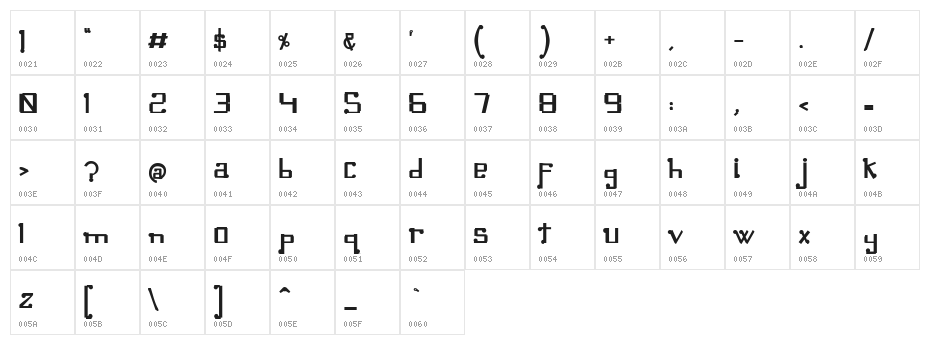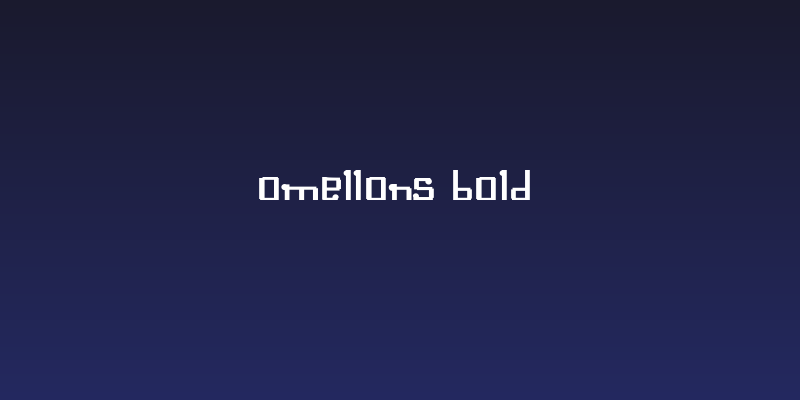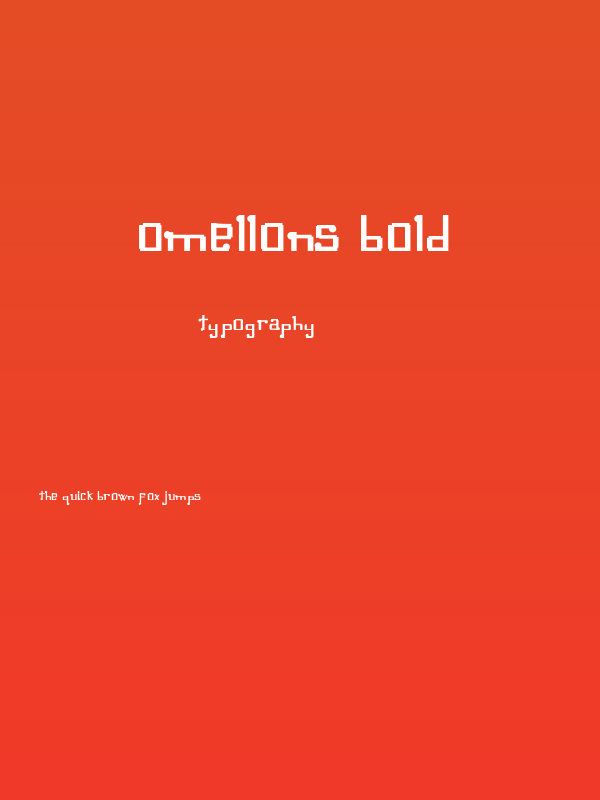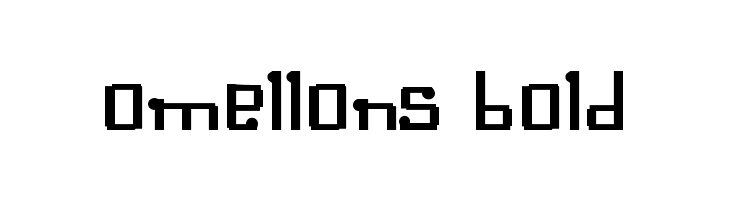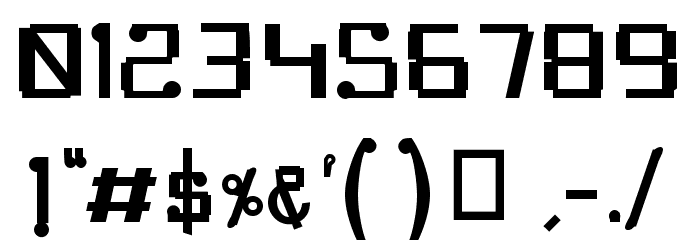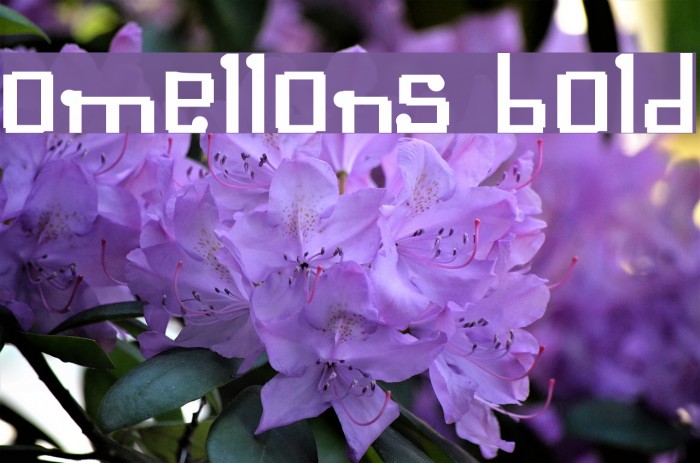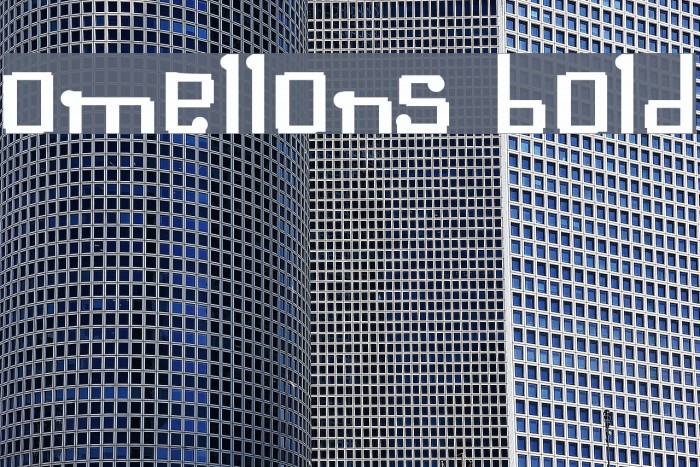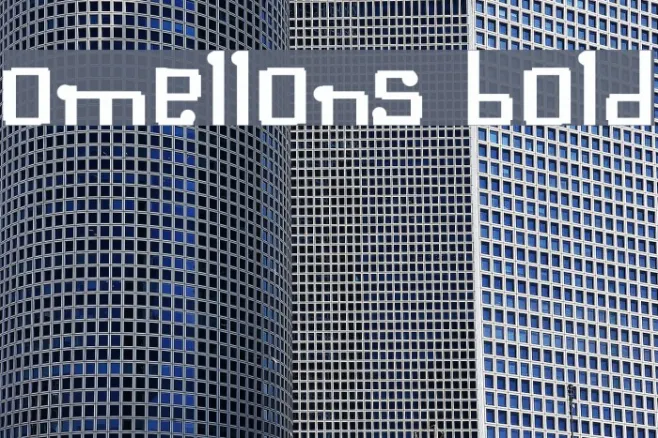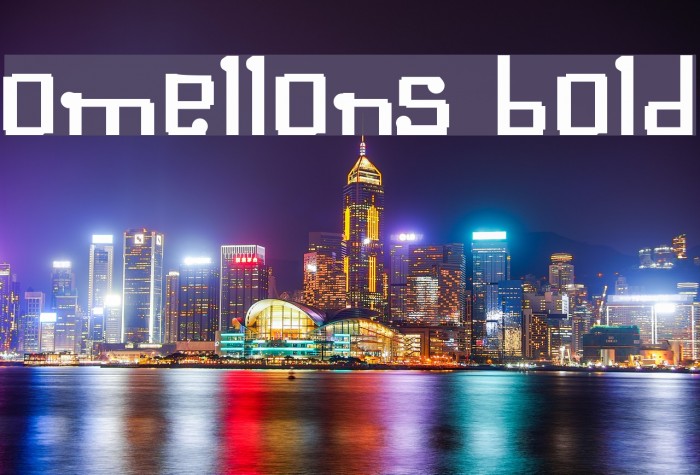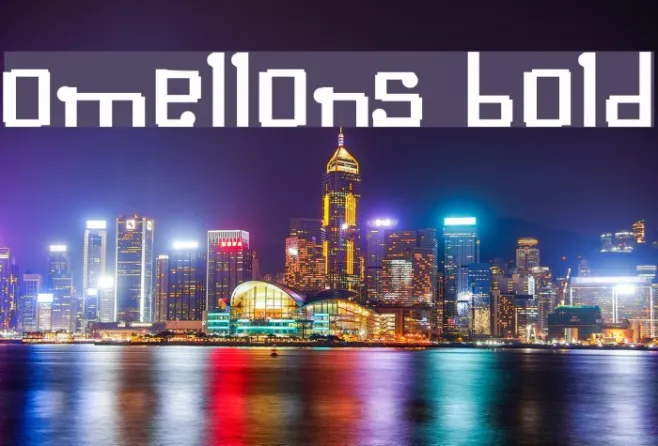
Omellons Bold Font
Omellons Bold Description
This font features a bold and geometric design with a distinct blocky appearance. Each character is crafted with sharp angles and a consistent stroke width, giving it a modern and structured look. The uppercase and lowercase letters maintain a uniform height, enhancing readability while adding a unique aesthetic. The numerals and special characters follow the same design principles, ensuring a cohesive visual style across all elements. This font's boldness and geometric nature make it stand out, making it suitable for attention-grabbing designs.
| Proposed Projects | Ideal for posters, headlines, logos, and branding materials that require a strong visual impact. |